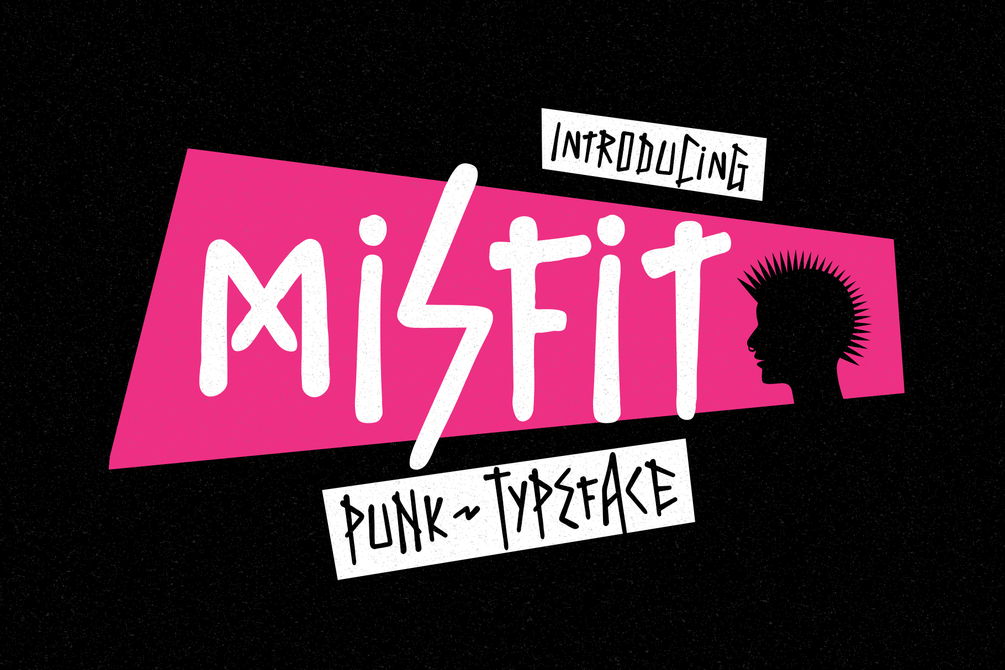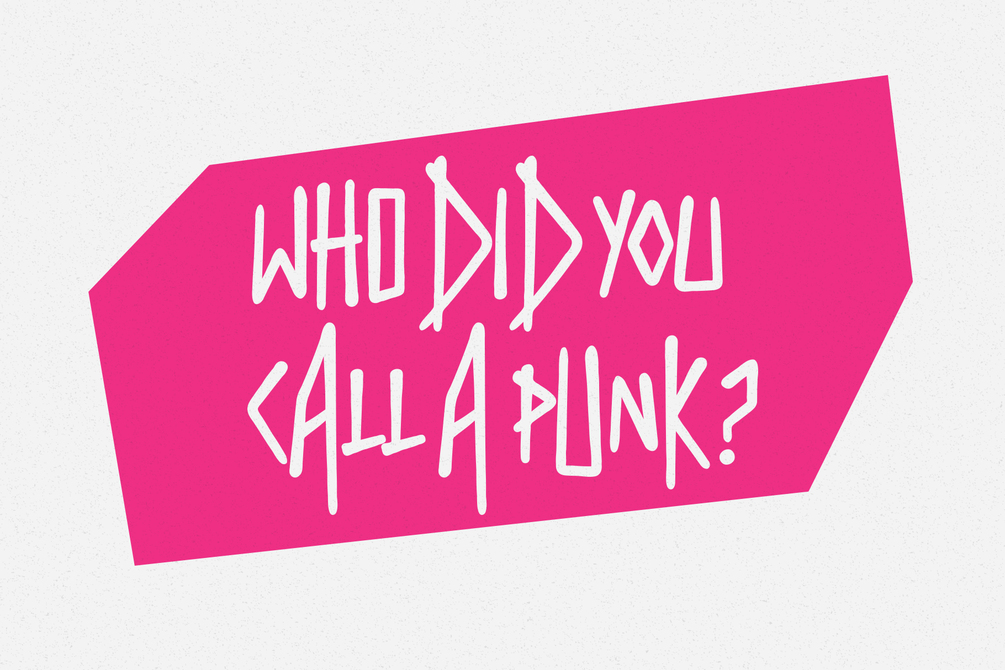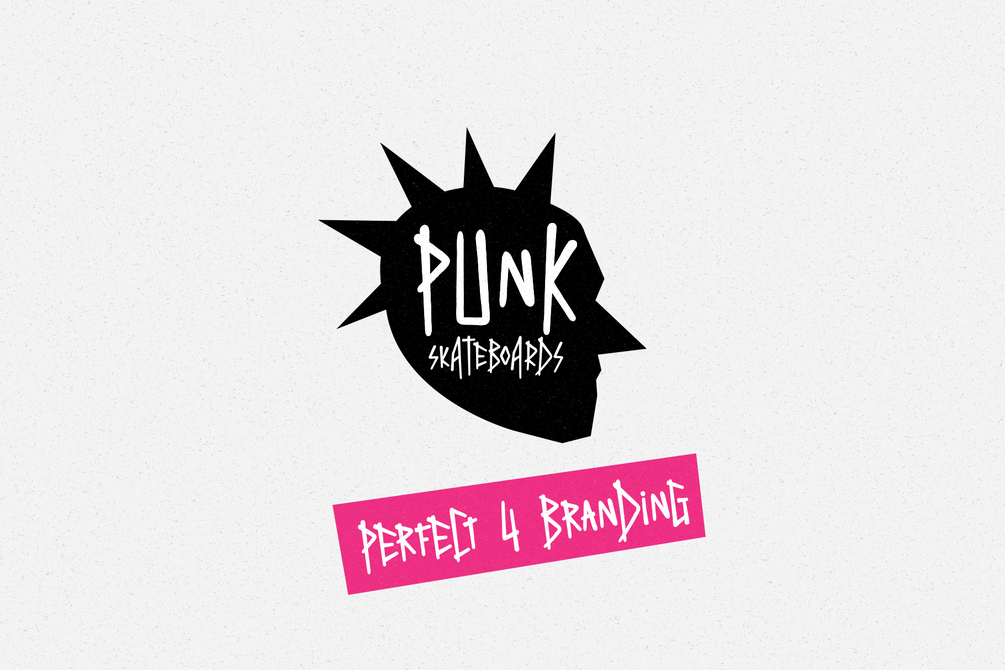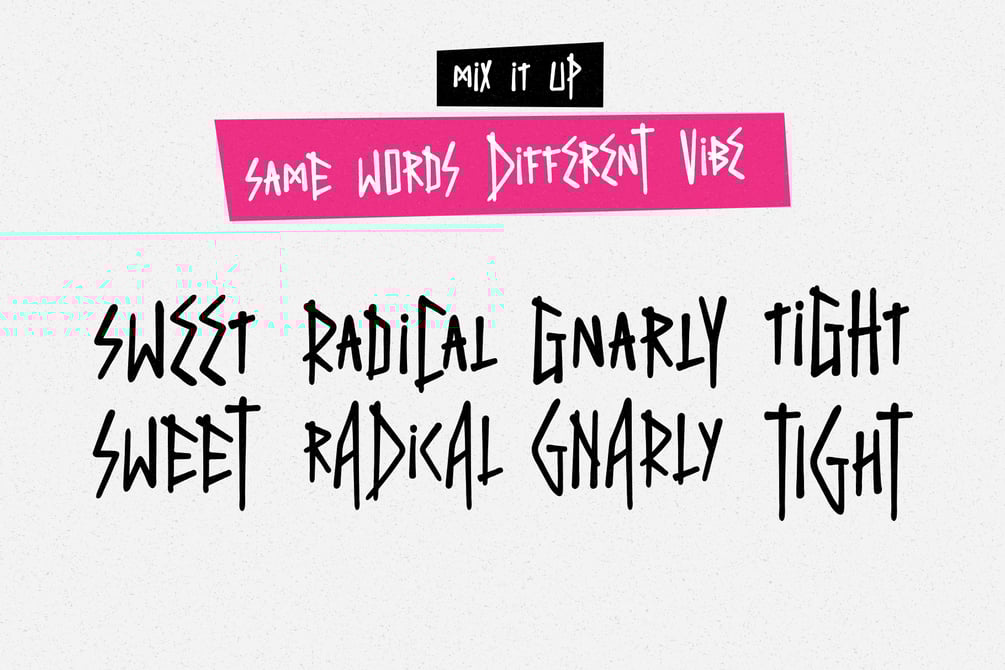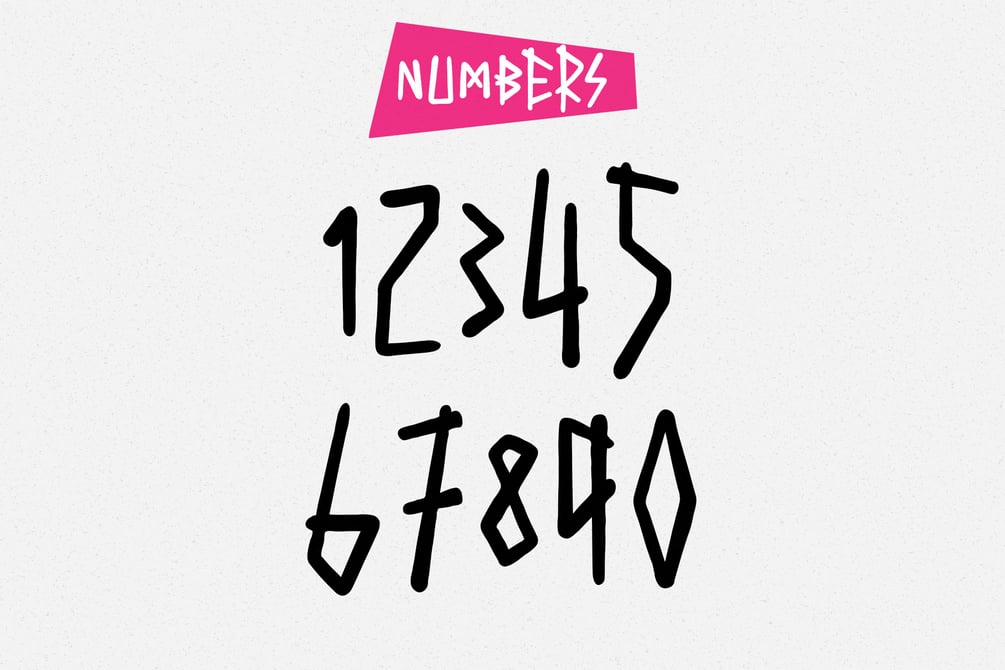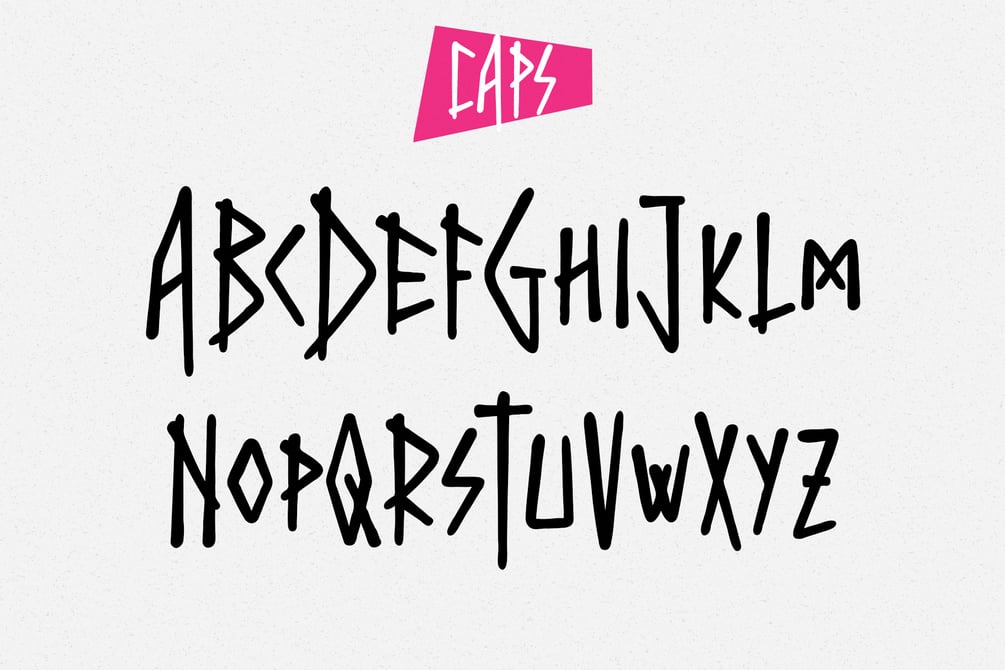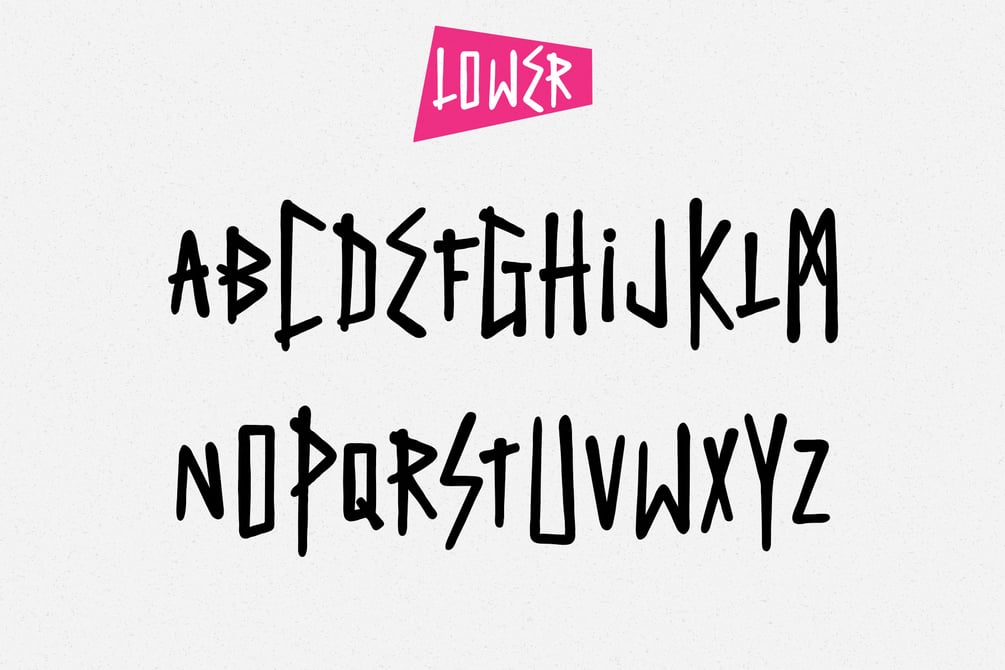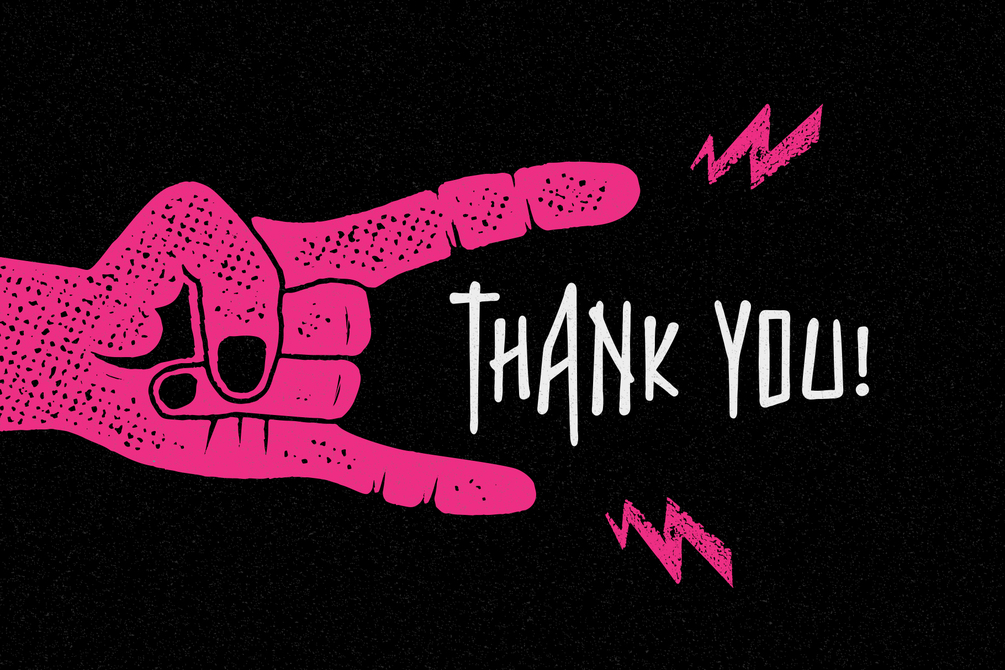
Misfit - Punk Typeface
Misfit is a decorative display typeface heavily influenced by the 1990s punk scene. The font is perfect for posters, headlines, album covers, apparel, logos, and much more. This all caps font includes punctuation and numerals. You can mix up small and low caps to get unique combinations. Enjoy!